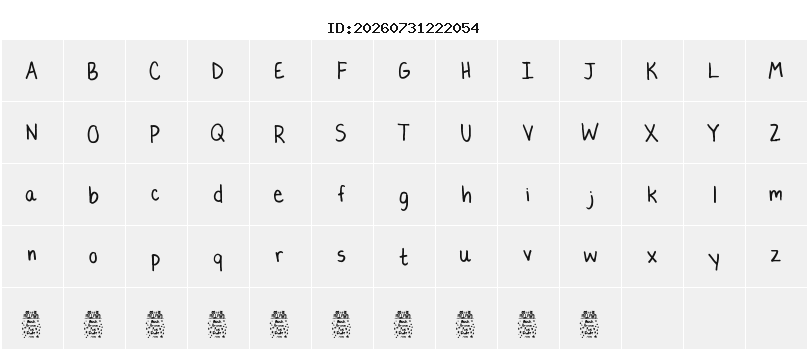
• Font Name: Lauren C. Brown (Demo Version)
About Lauren C. Brown (Demo Version).ttf
Lauren C. Brown (Demo Version).ttf is a modern, elegant sans-serif font designed for ultimate readability and visual harmony. Perfect for branding, headlines, web design, and print materials.